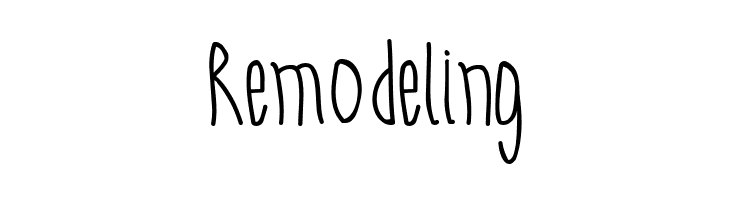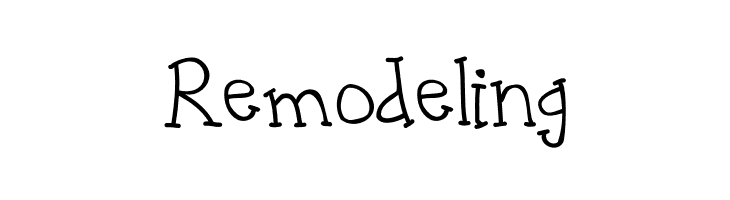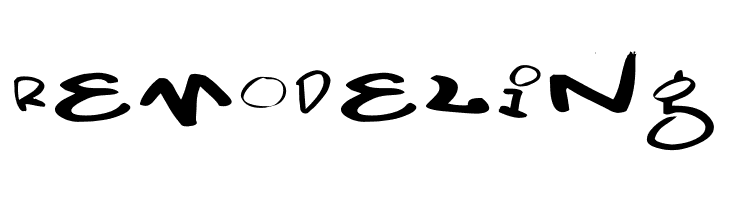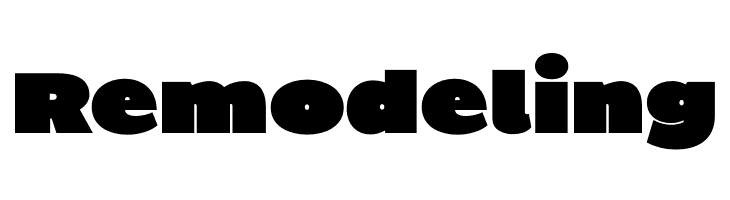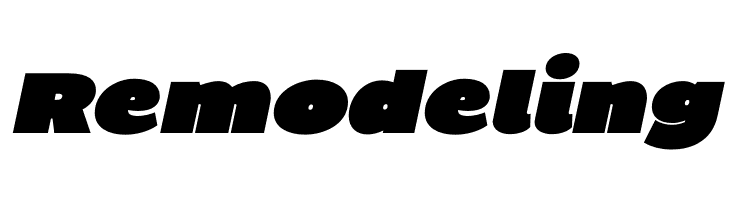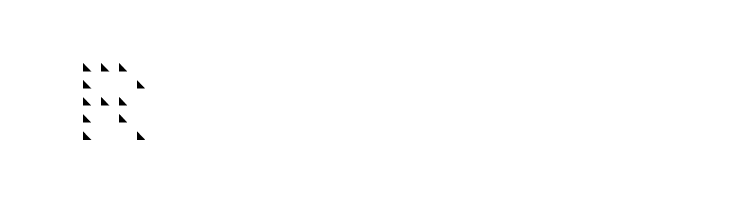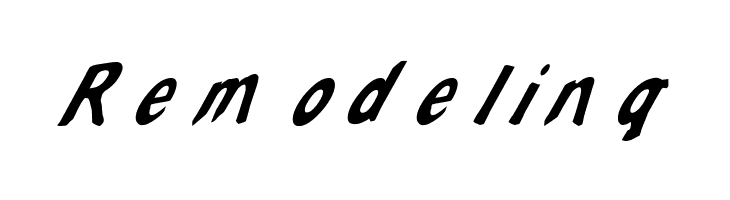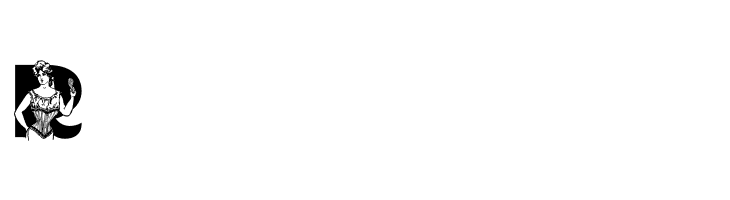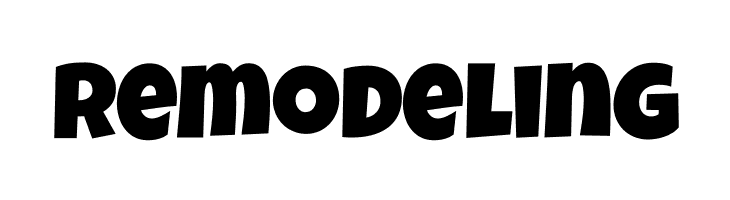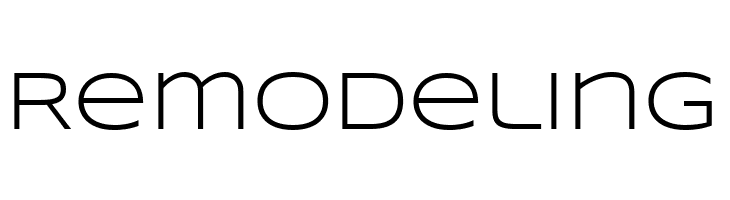
A bold, geometric font with thick strokes and strong visual impact.
A bold, italicized font with high contrast and tight spacing, perfect for impactful designs.
A decorative font with Victorian-inspired illustrations integrated into each character.
A playful, bold font with thick, rounded letters and a comic-like style.
A modern, geometric typeface with uniform stroke width and clean lines.
A casual, handwritten font with a playful and informal style.
A bold, modern font with geometric influences and unique character curvature.
A bold, playful serif font with vintage charm and rounded serifs.
A bold slab serif font with strong, block-like serifs and high contrast.
A charming and elegant script font with fluid, graceful strokes.
A bold, playful font with rounded, geometric letterforms and a retro vibe.
A lively, cursive script font with smooth, connected strokes.
A bold, expressive script font with flowing, connected letterforms.
A bold slab serif font with a vintage Western flair.
A playful, bold font with high contrast and unique curves.
A playful, decorative font with bold, hand-drawn characters and whimsical curves.
A bold, geometric sans-serif font with a modern and clean design.
A bold, geometric font with an urban, edgy style.
A classic, elegant font with a modern twist and moderate contrast.
A vintage cursive font with elegant, flowing characters.
A bold, playful font with exaggerated curves and sharp edges.